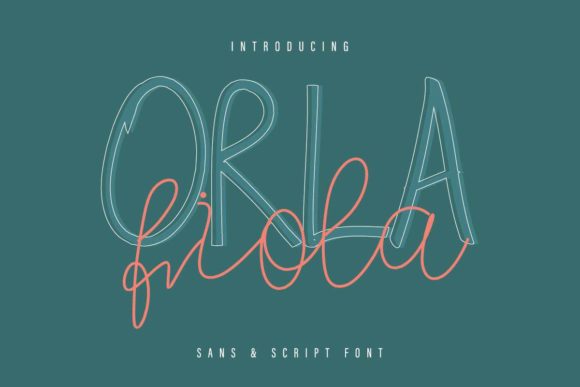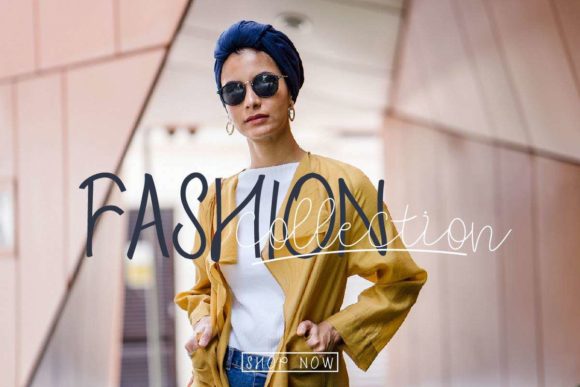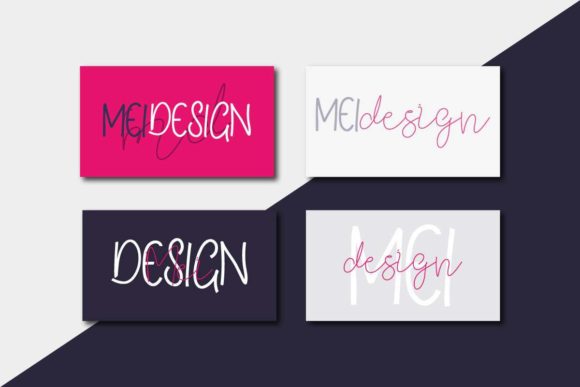
Introduction to Orla Fiola Font
Orla Fiola is an amazing duo font.
It features script style with sans serif Combining these two fonts on your next design will give a modern and stunning feel.